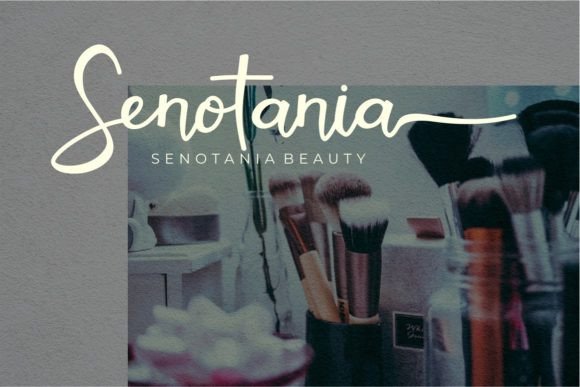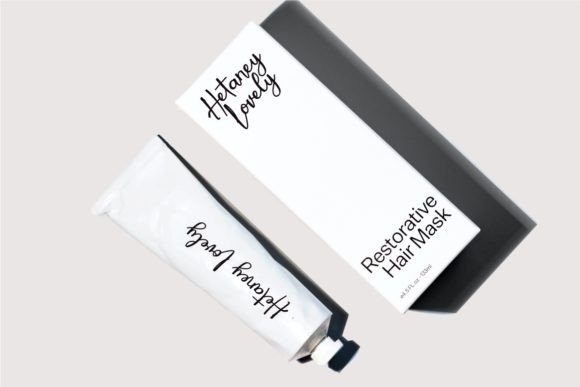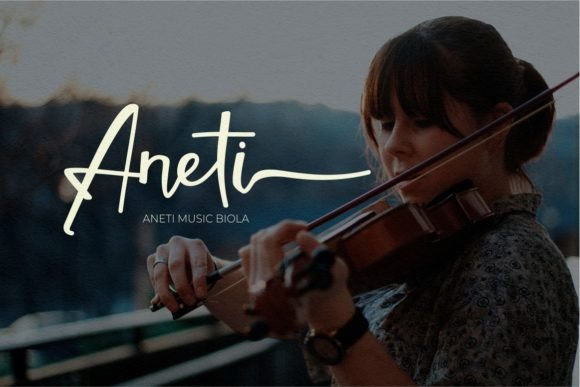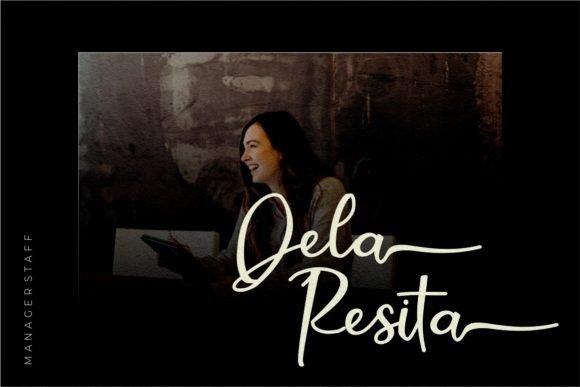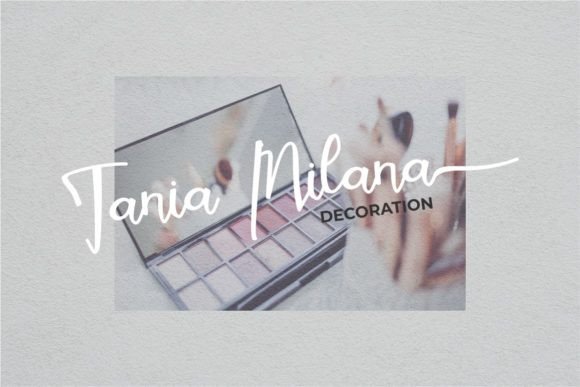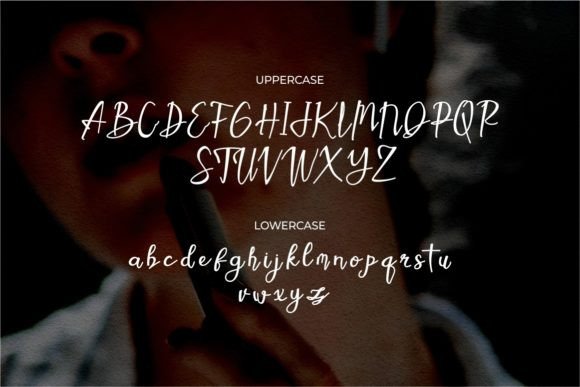
Unleash Your Creativity with the Timeless Hendania Font
Have you ever stared at a blank canvas, waiting for inspiration to strike? For designers, this moment is all too familiar. But what if you had the perfect tool to spark your creativity and bring your vision to life? Enter the elegant Hendania Font, a refined script font that exudes class and sophistication. Whether you’re crafting a logo, designing an invitation, or creating a social media post, Hendania Font is the perfect companion to help you express your artistic side.
With its modern look and PUA encoding, Hendania Font offers endless possibilities for designers. You can access all the amazing glyphs and ligatures with ease, making it an invaluable asset for any creative project. Whether you’re a seasoned pro or just starting out, Hendania Font is sure to become your go-to font for all your design needs.
Hendania Font Key Features
- Unique Characteristics: Hendania Font features a unique blend of modern and vintage elements, with intricate details and ornaments that set it apart from other fonts.
Hendania Font Review
Overall, I think Hendania Font has some great qualities that make it a solid choice for designers. ✨ The font’s elegant and refined design is perfect for high-end branding and luxury products. The subtle curves and rounded edges give it a sophisticated look that’s hard to resist.
The font also has a wide range of weights, from light to bold, which makes it versatile and easy to use in various design scenarios. ✨ I appreciate how the font family includes a range of styles, from script to sans-serif, which caters to different design needs.
However, I have to mention a few limitations that might be a concern for some designers. ⚠️ The font’s readability can be a bit compromised at smaller font sizes, which might make it less suitable for body text or small-scale designs. Additionally, the font’s intricate details can sometimes make it look cluttered or overwhelming if not used judiciously.
While Hendania Font has its limitations, I think it’s a great choice for designers who want to add a touch of luxury and elegance to their designs. With some careful consideration and use, this font can elevate any project to the next level.
- Elegant and refined design
- Wide range of weights and styles
- Perfect for high-end branding and luxury products
- Wide range of font sizes and weights
- Script, sans-serif, and other styles available
Hendania Font is ideal for:
- Creating elegant and sophisticated designs.
- Adding a touch of vintage charm to modern designs.
- Designing luxury brand materials, such as packaging and marketing materials.
- Creating elegant typography for websites and social media graphics.